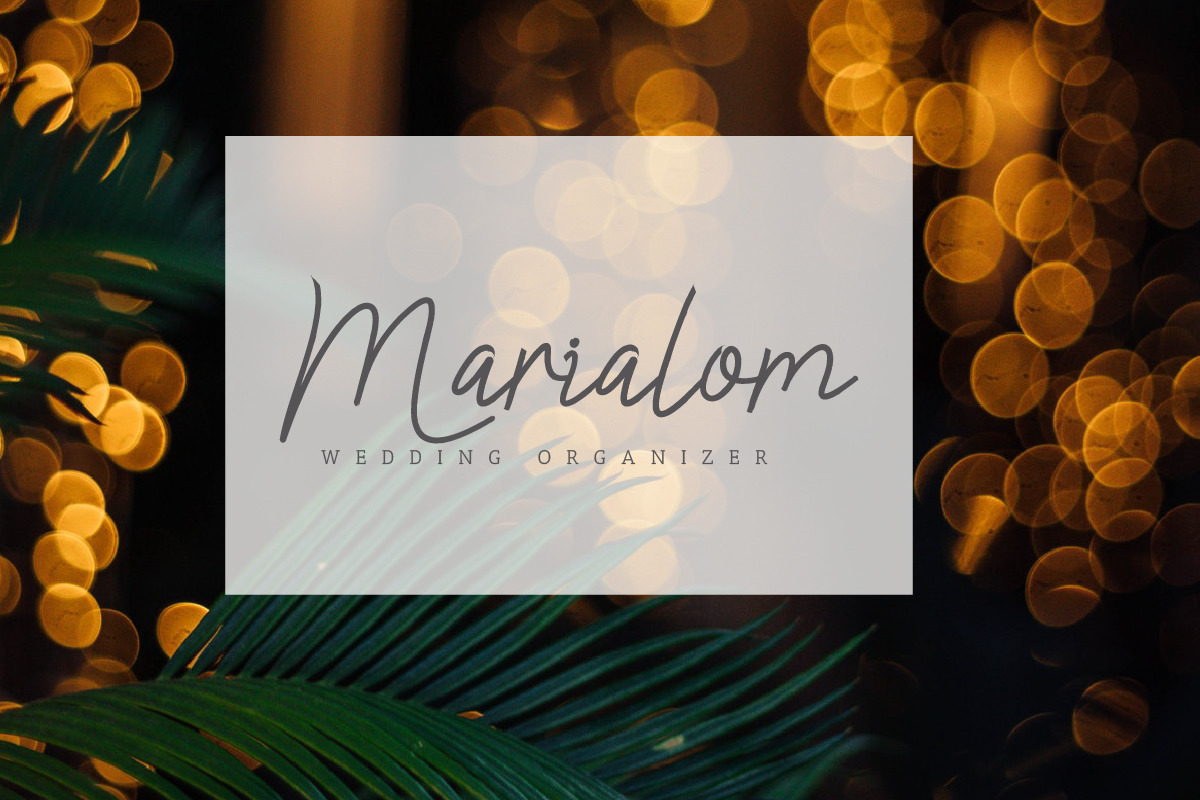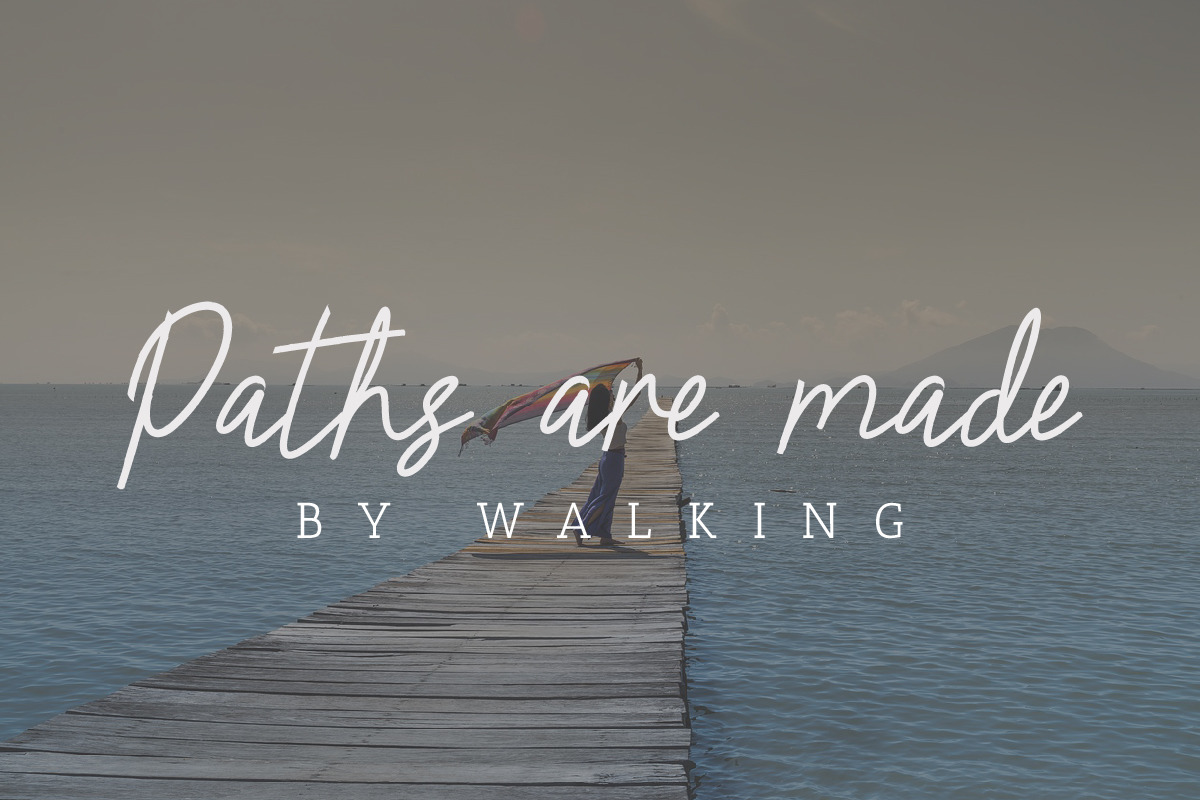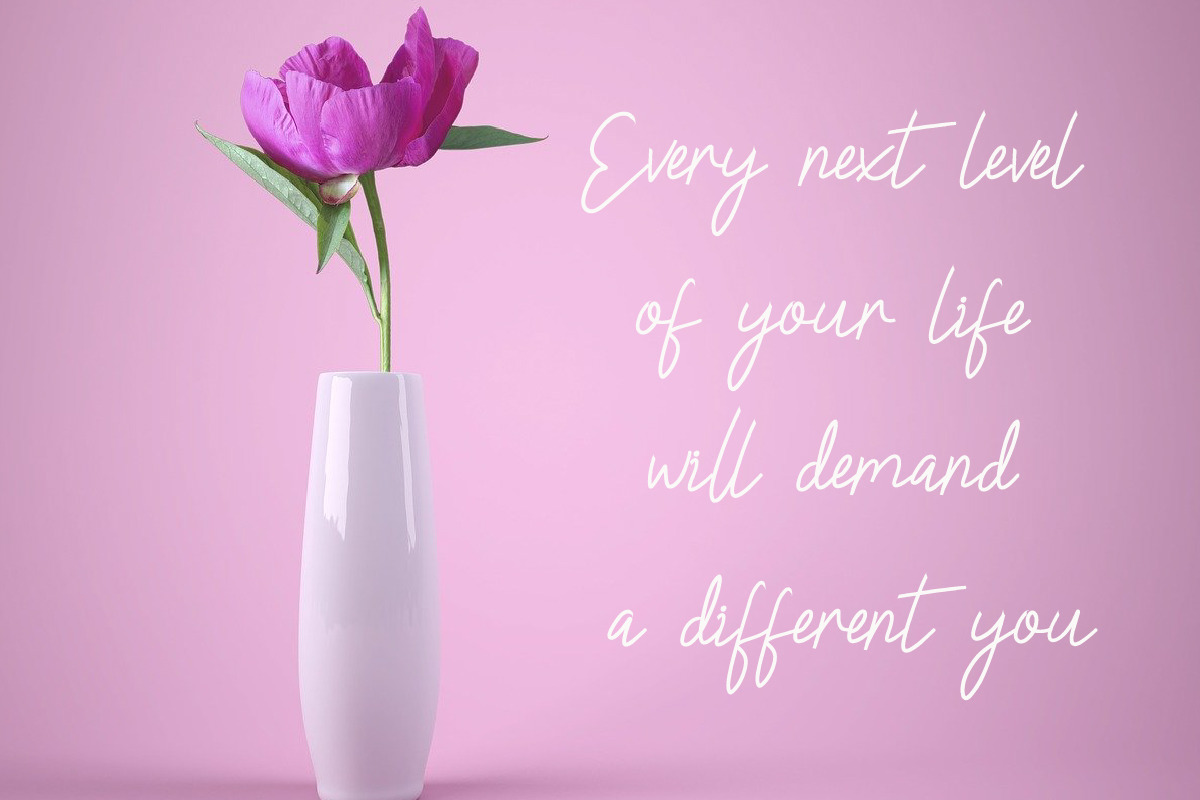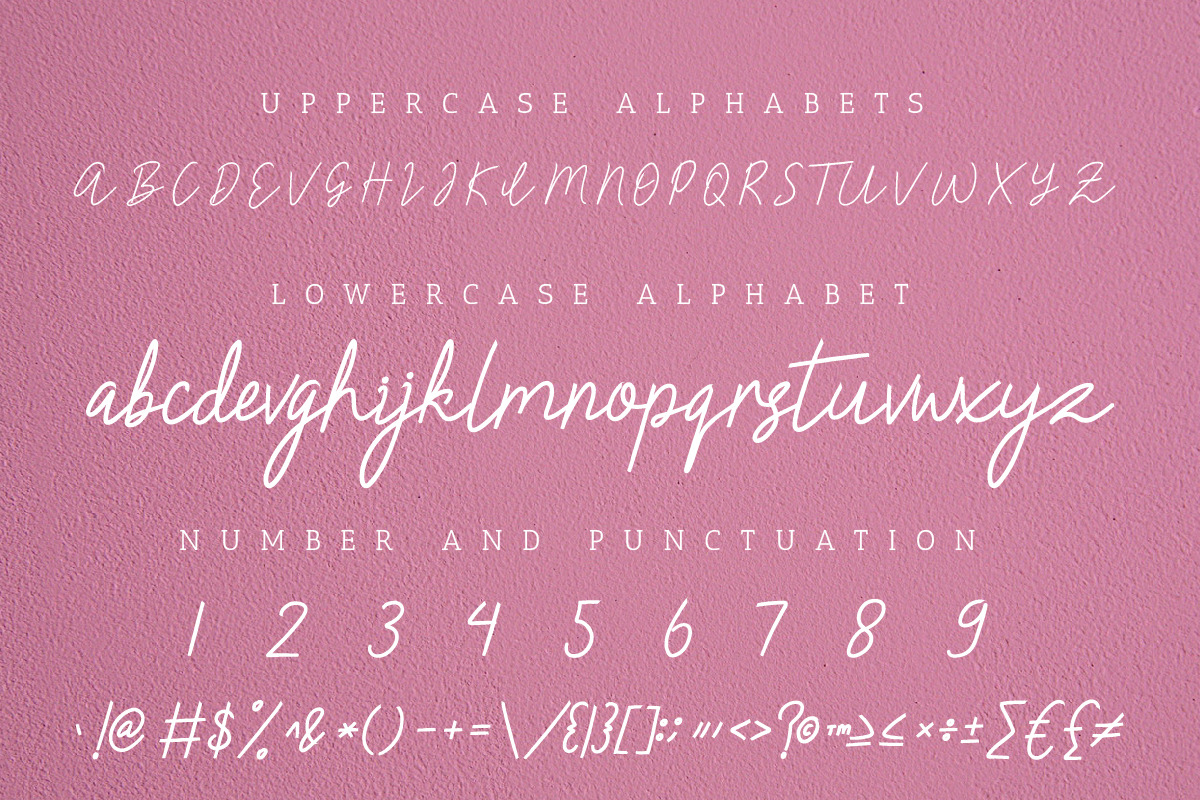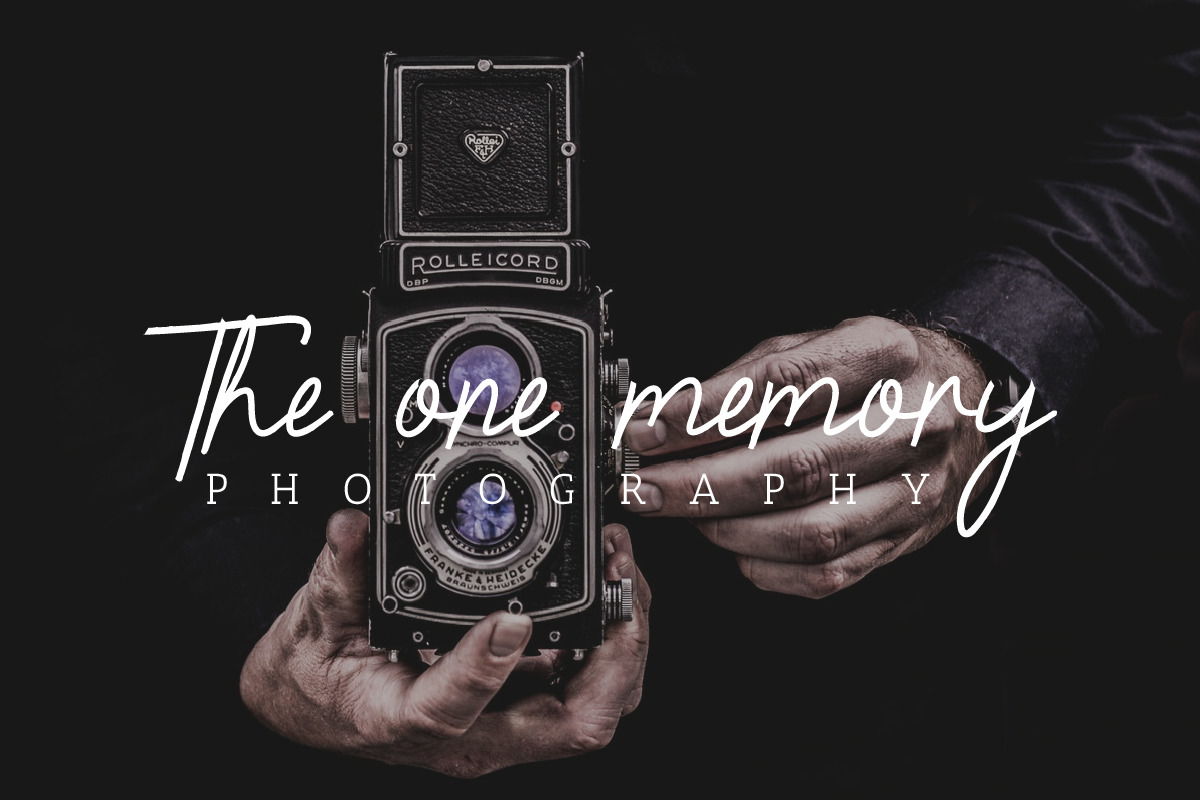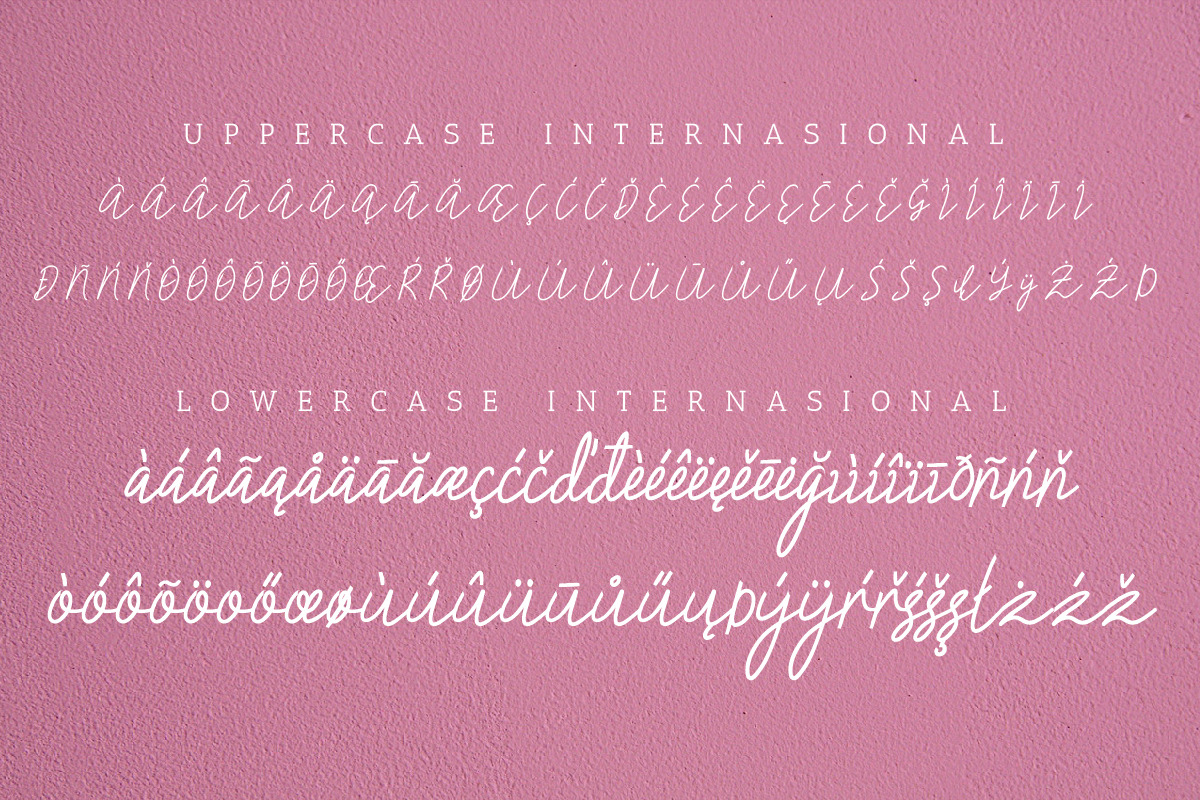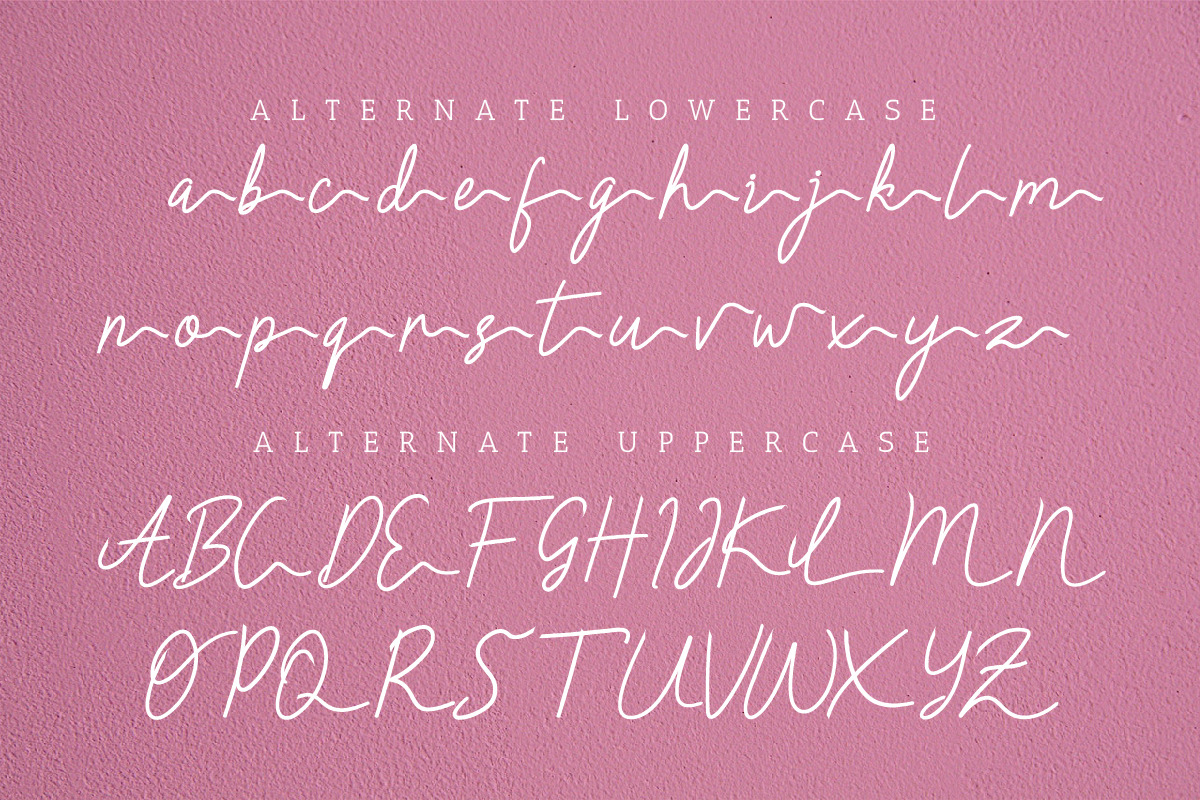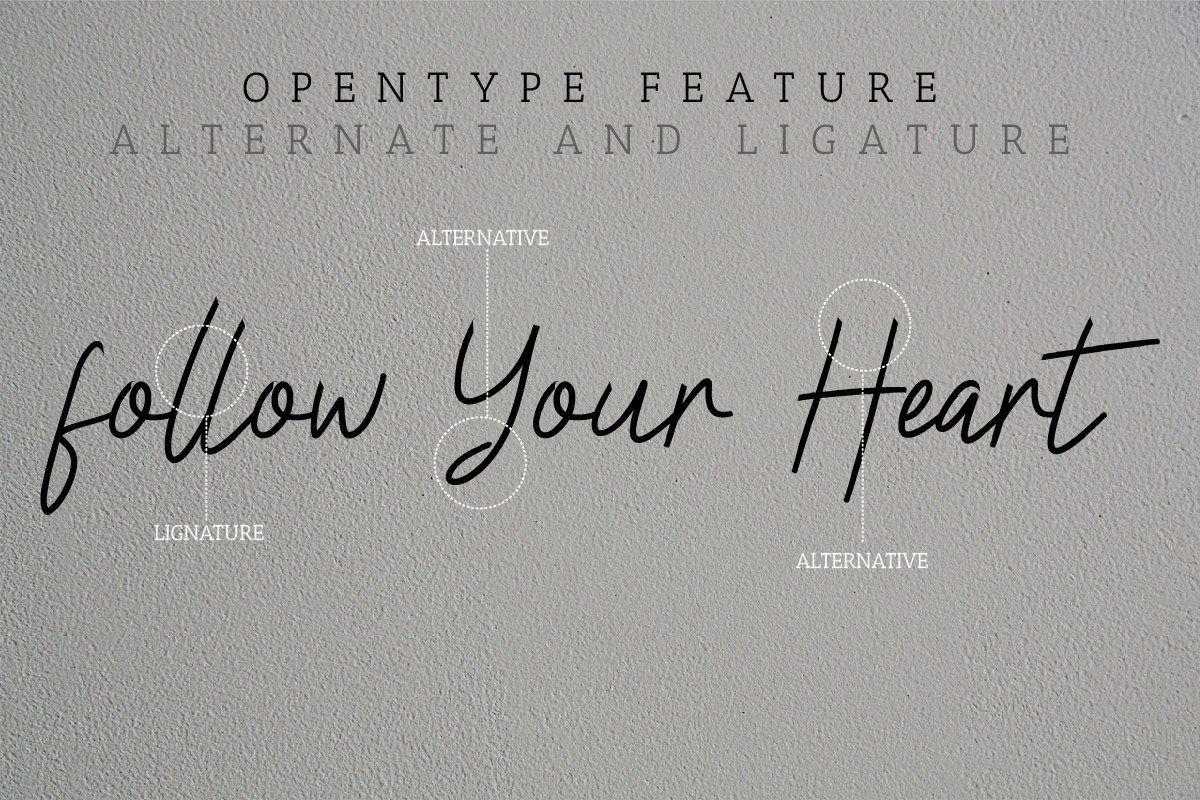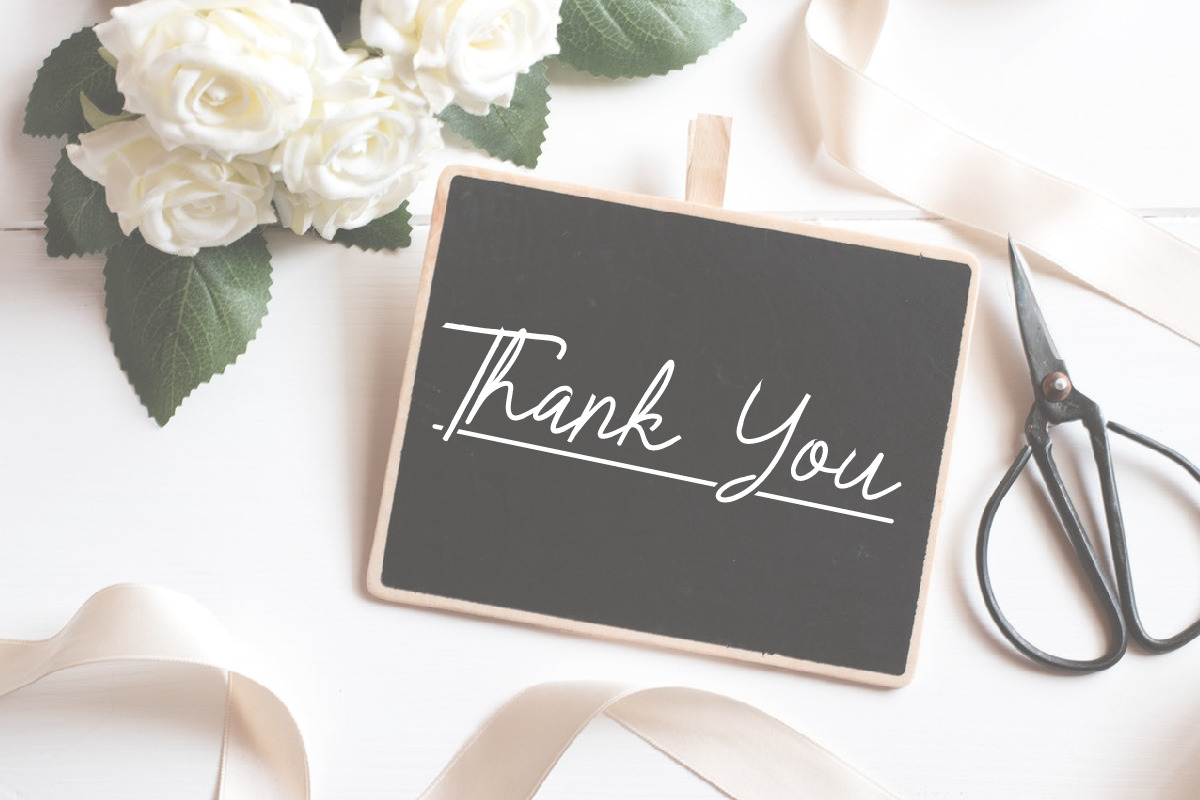
Claressa Signature Font
Please let us introduce to you our latest product of signature font : Claressa Font
Claressa Font is a signature with sopisticated glyphs and got so many alternatives glyps : both lower and upper cases. Claressa Font has also international languages glyphs. Claressa Font will Work on PC & Mac with Simple installations. Accessible in the Adobe Illustrator, Adobe Photoshop, Adobe InDesign, even work on Microsoft Word. It’s also PUA Encoded Characters – Fully accessible without additional design software.
Claressa Font will be great for many industries : law firm, gardening, makeup artist, musician, florist, architect, real estate, interior design, cafe, etc. This font can be used for : Logo Design (with extended license), flyer, stationery, business card, signage, flyer, brochure etc. Claressa Font will make all your works look beautiful